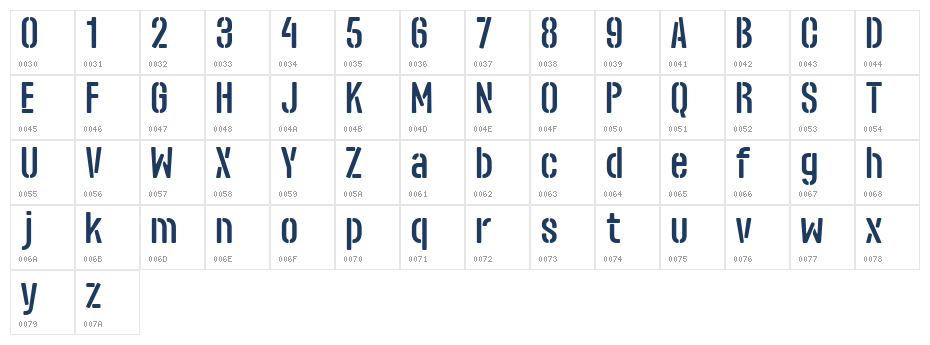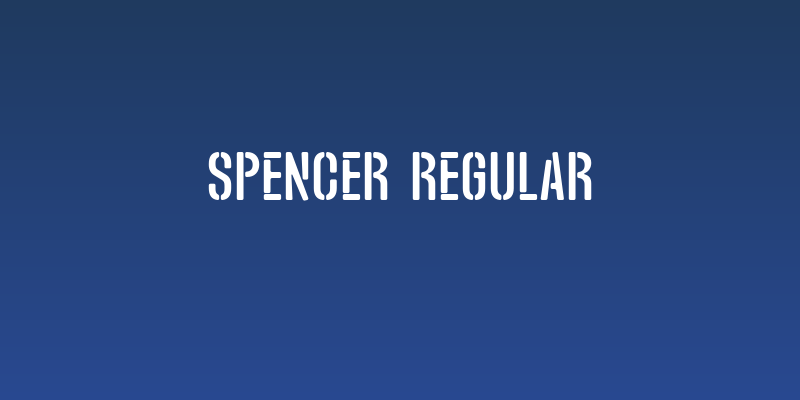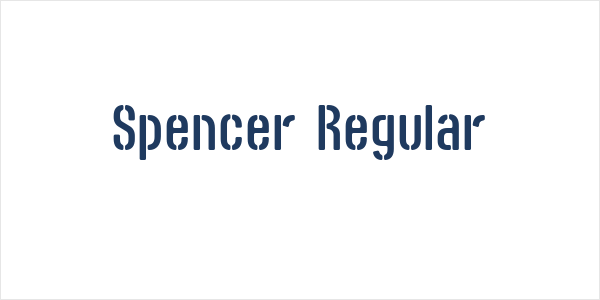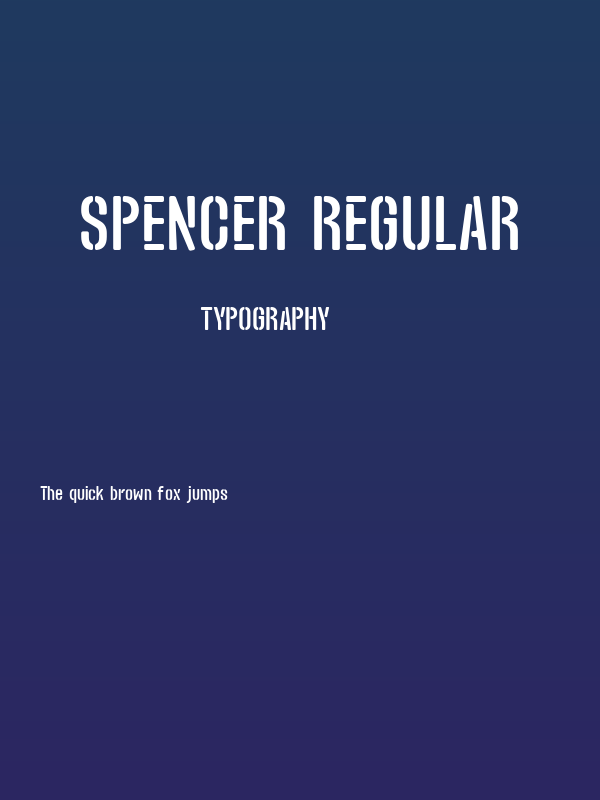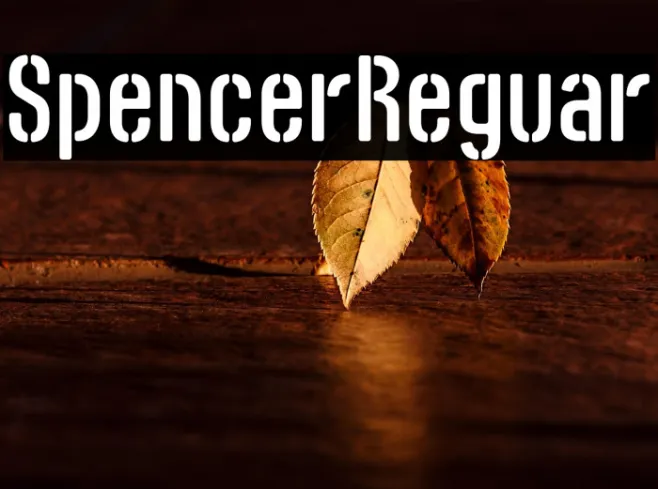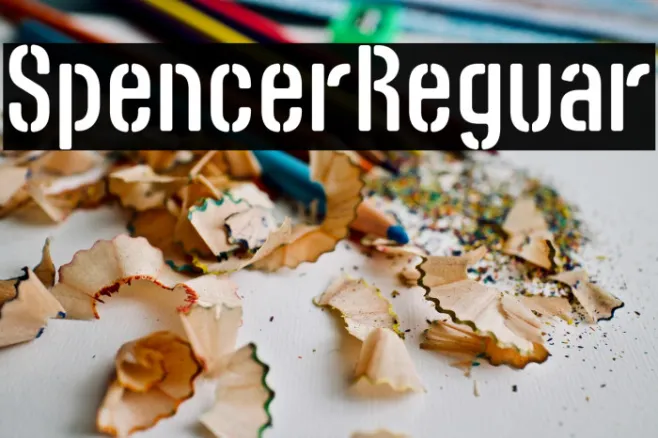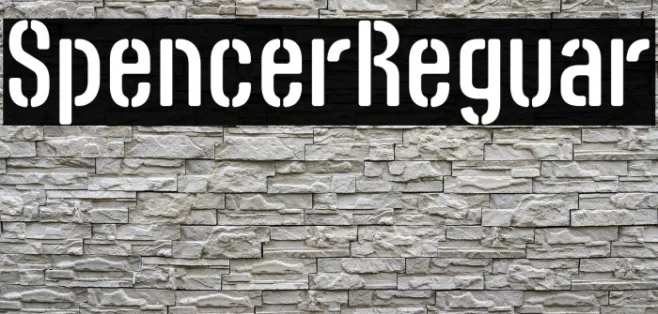
Spencer Regular Font
Spencer Regular Description
A bold, stencil-style font with a slightly condensed appearance, featuring uniform stroke widths and cut-out segments in the characters.
Spencer
| Overall Style | Industrial, Bold, Stencil |
| Use Case | Headlines, Posters, Branding, Signage |